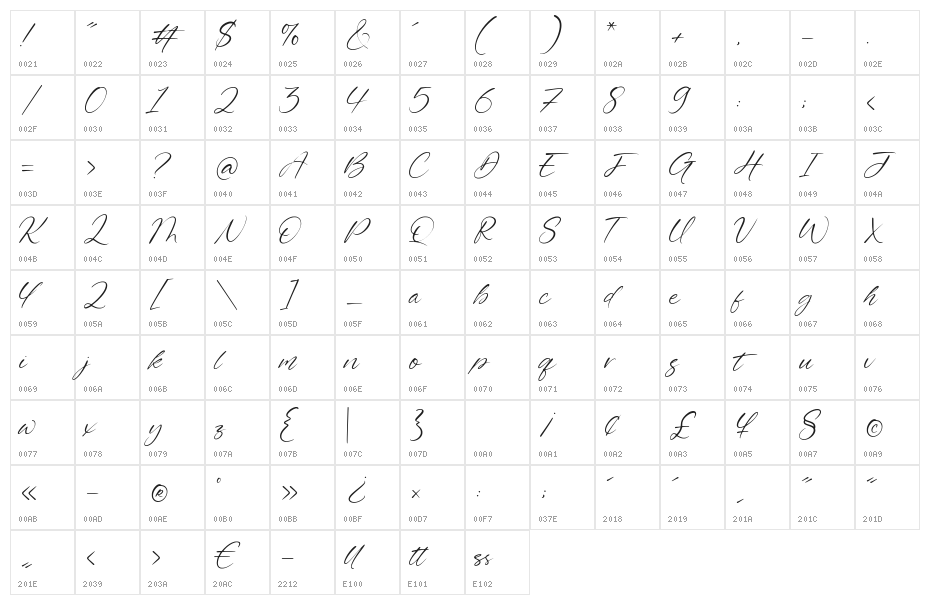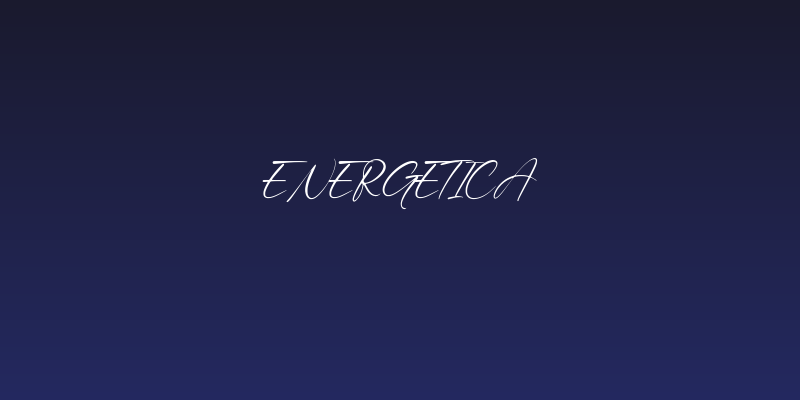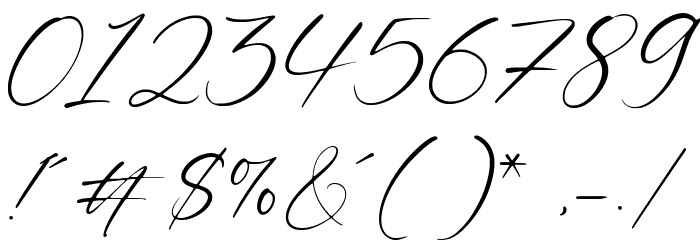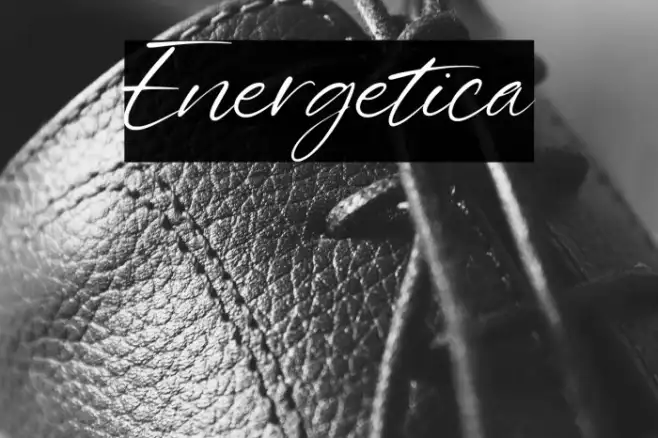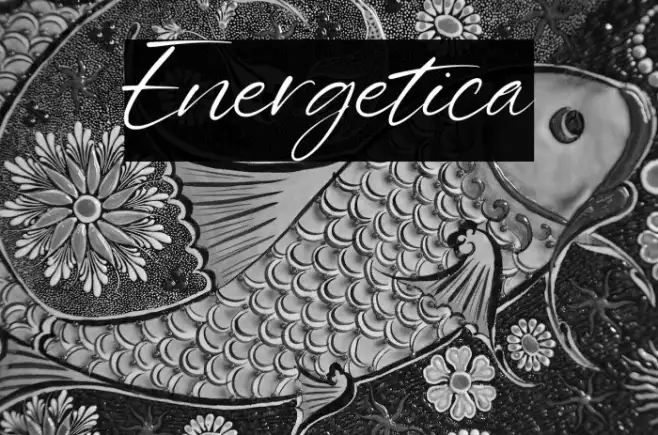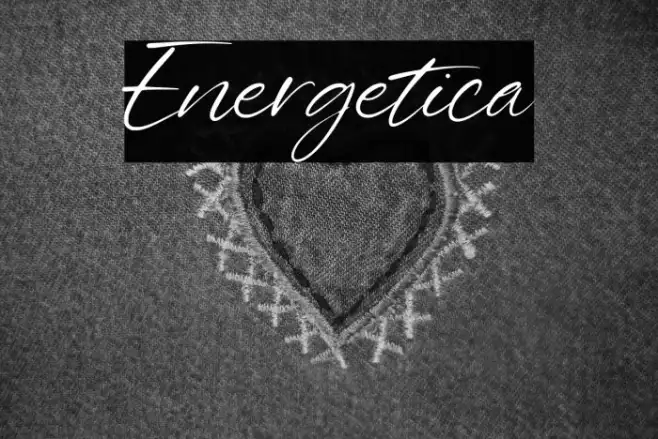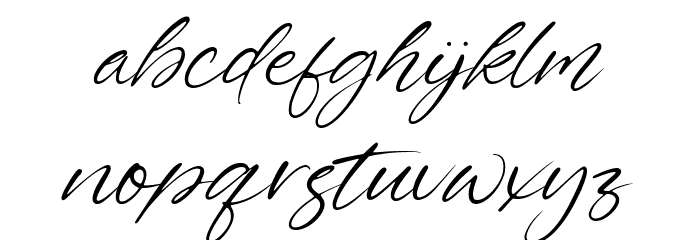
Energetica Font
Energetica Description
This elegant script font features fluid, sweeping strokes that convey a sense of motion and grace. The uppercase letters are characterized by their dramatic flourishes and loops, while the lowercase letters maintain a consistent flow with slightly less embellishment. The numerals and special characters are crafted with the same attention to detail, ensuring a cohesive look across all elements. The font's thin lines and high contrast between thick and thin strokes add to its sophisticated appearance, making it ideal for formal and decorative uses. Its overall style is reminiscent of classic calligraphy, yet it maintains a modern touch with its clean lines and balanced proportions.